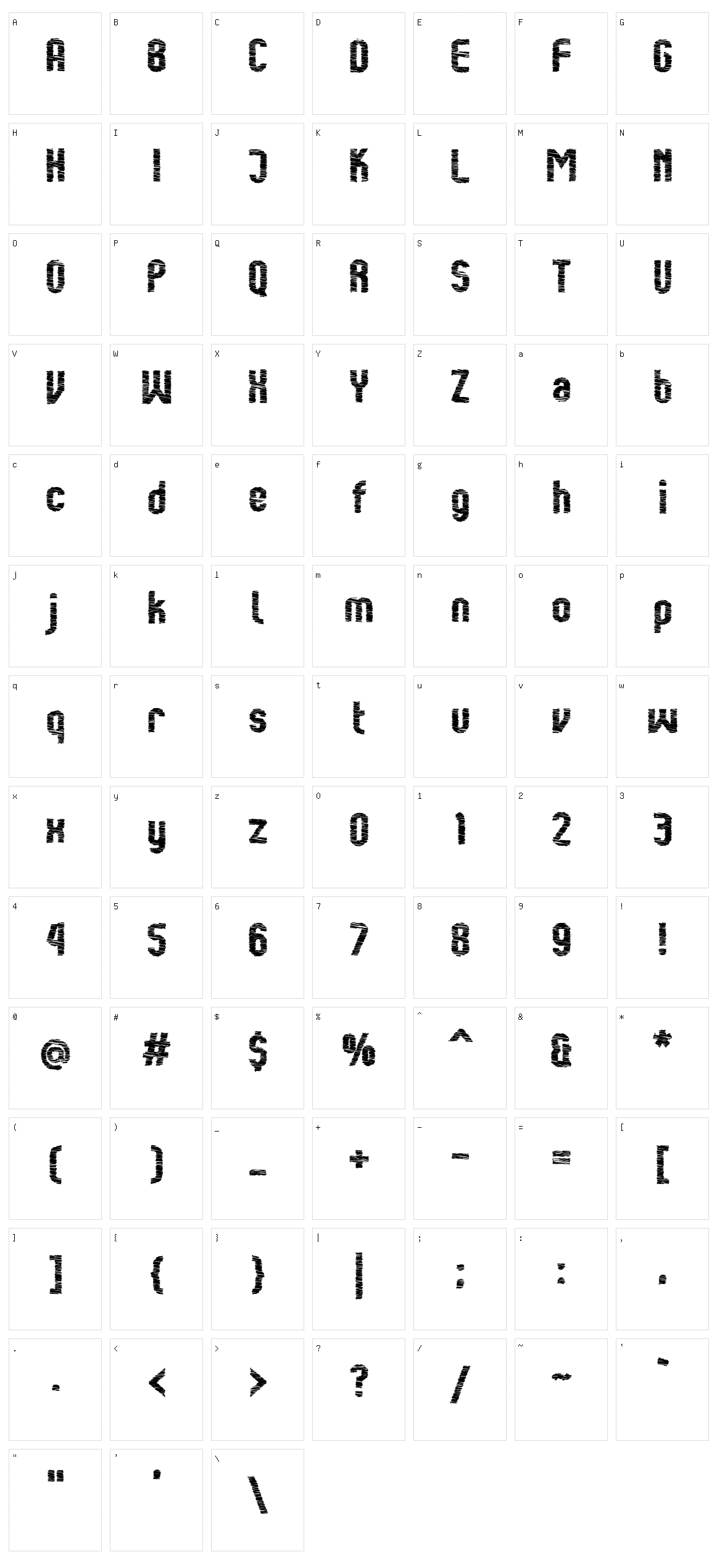
Kumba Scrawl is an authentic and quirky sans serif font. Incredibly friendly, this font will brighten up any of the design projects you wish to create!